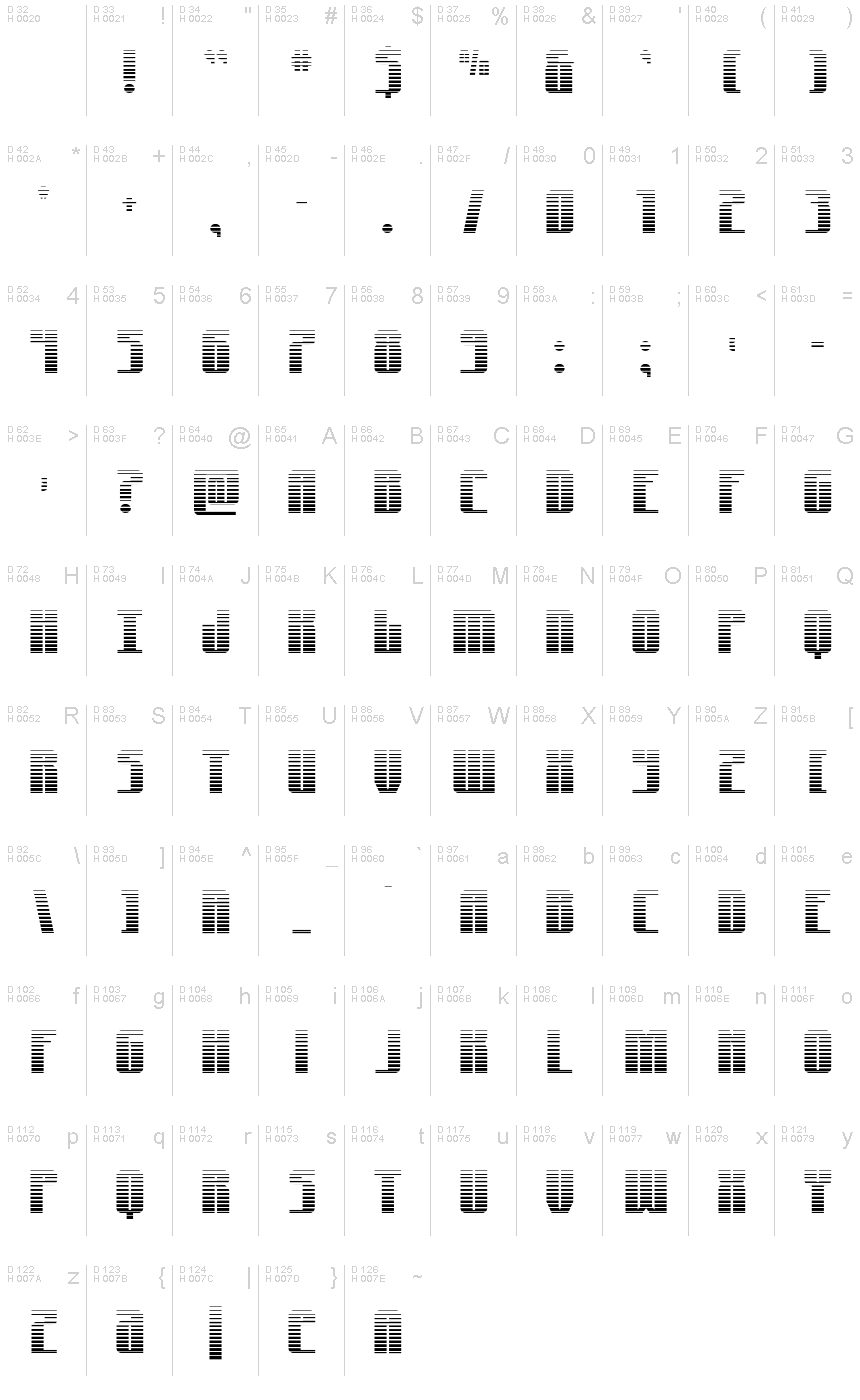
Xeno-Seeker Gradient
Xeno-Seeker Gradient font is available as a strong and modern donationware typeface. The visual impact of this display-techno font is most eye-catching, with its horizontal stripe details. Xeno-Seeker's condensed width and high-contrast range in weight create an added dramatic effect to the overall presentation of the letters. Their futuristic, decorative design captures elite, modern aesthetics at their finest.
Due to its bold sophisticated tenor, the font lends itself extremely well for headers and presentations that require striking visual appeal; invitations, playful business cards and personal branding materials are also great places where highly distinctive type would be appreciated!